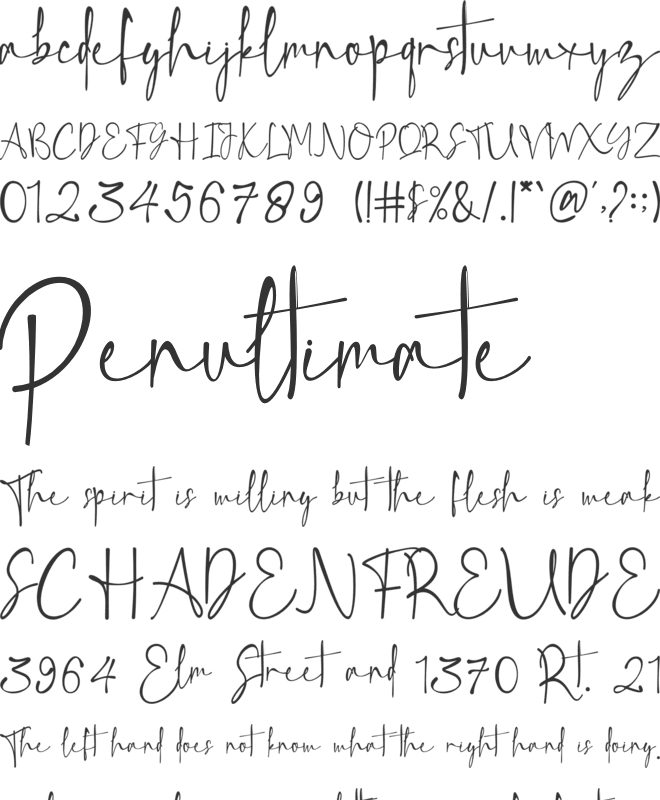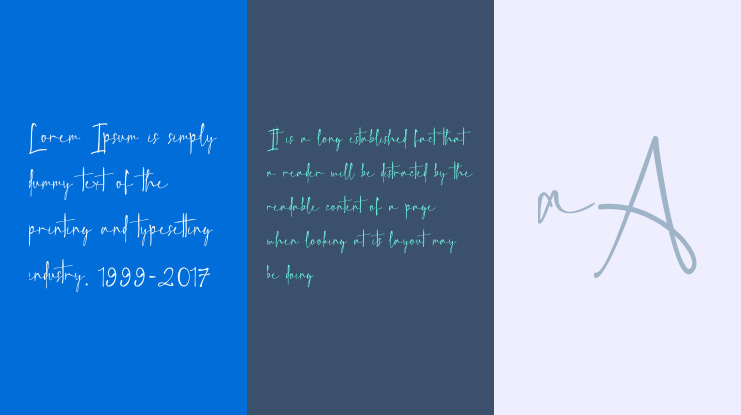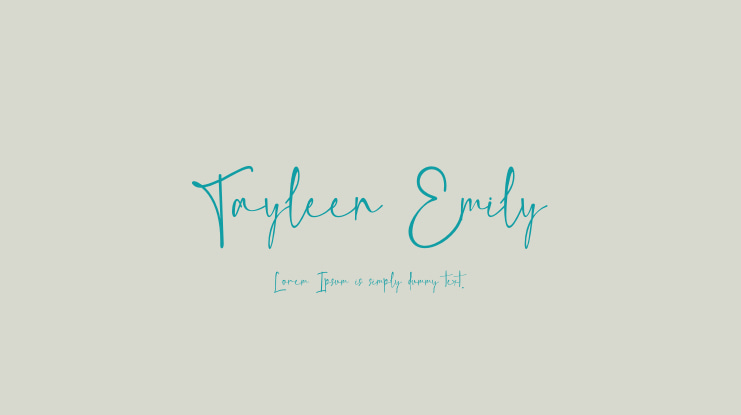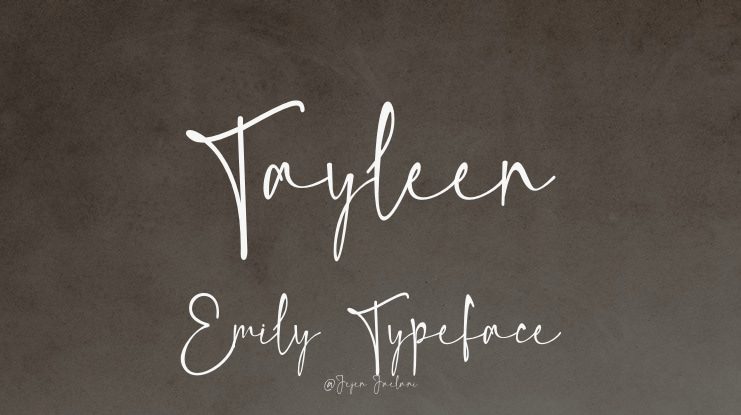
Tayleen Emily Font
Introducing Tayleen Emily, an elegant Signature Script font designed to capture the essence of handwritten sophistication. With its graceful curves and fluid strokes, Tayleen Emily evokes a personal, stylish touch reminiscent of delicate penmanship. Perfect for branding, logos, invitations, and personal signatures, this font balances modern aesthetics with timeless beauty. Each character flows seamlessly, making your designs appear refined and effortless. Tayleen Emily adds a personalized, chic flair to any project, embodying the charm and warmth of authentic handwriting.
• Numerals and Punctuation
• Multilingual Support